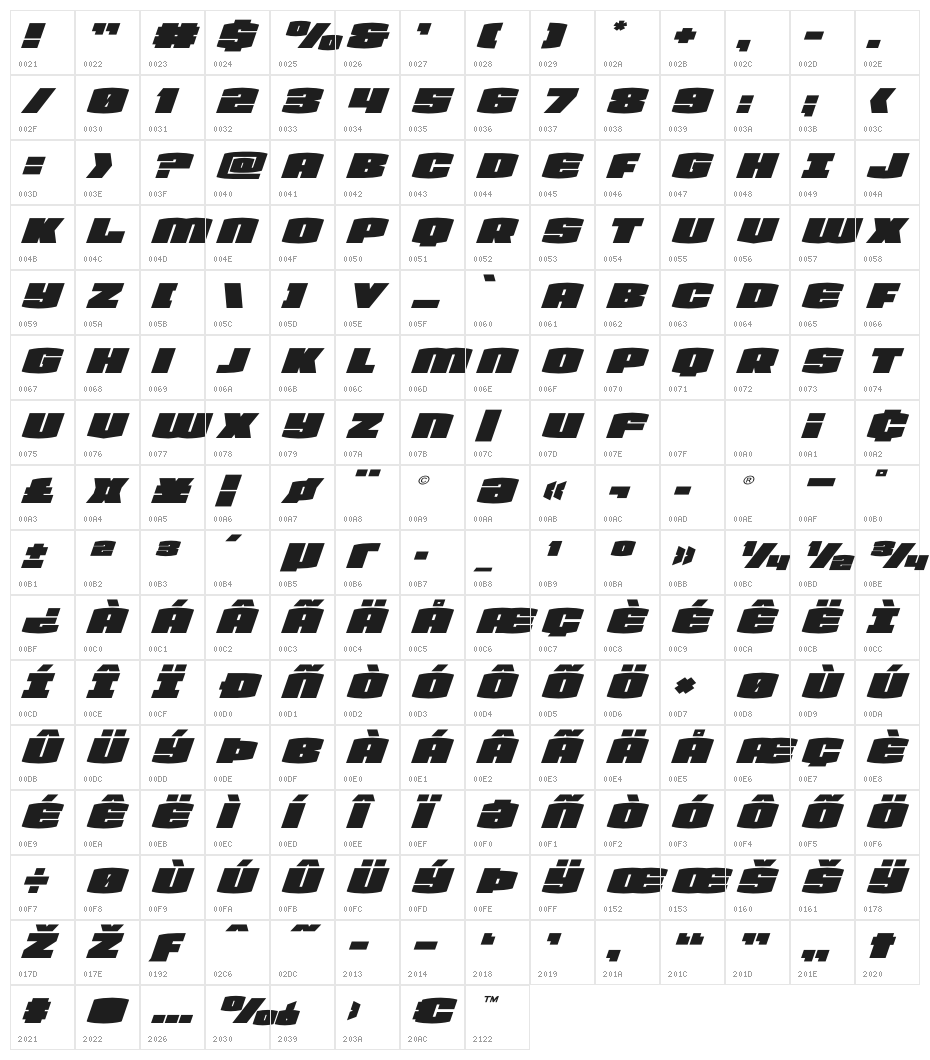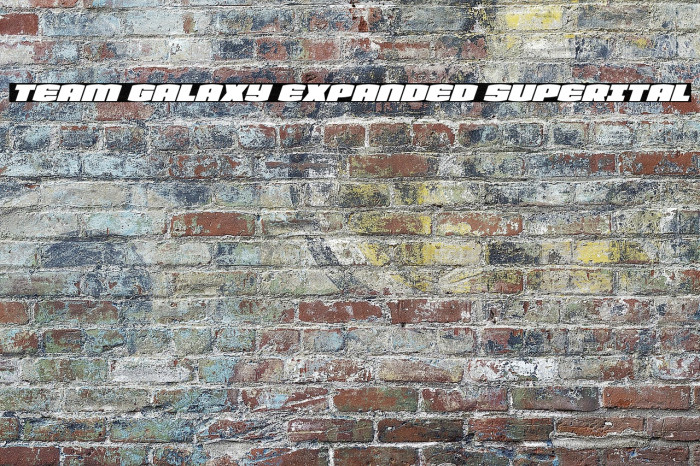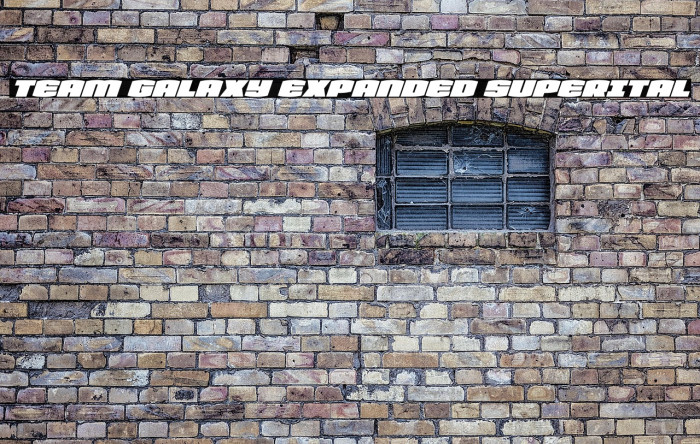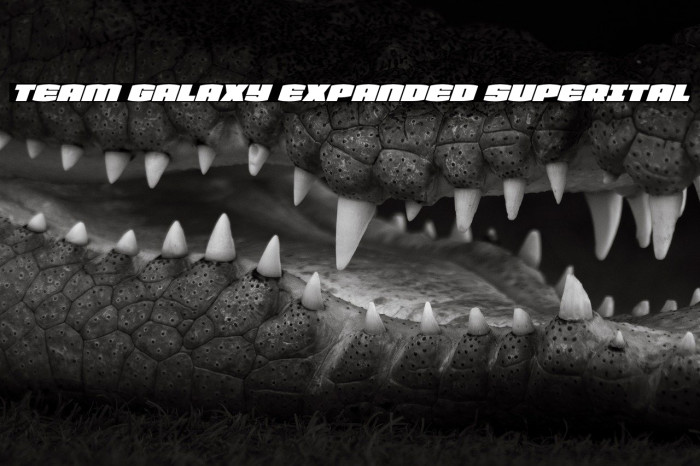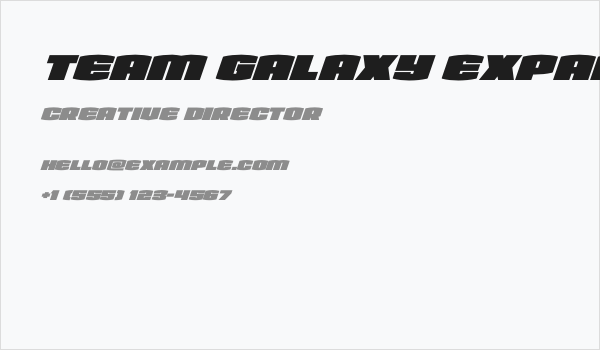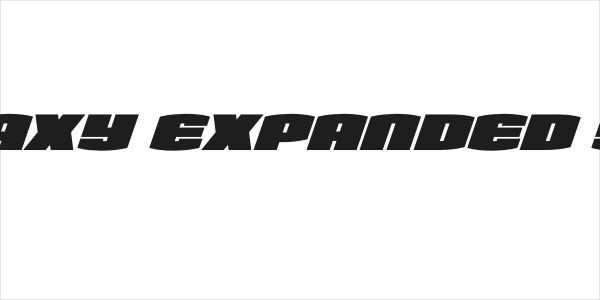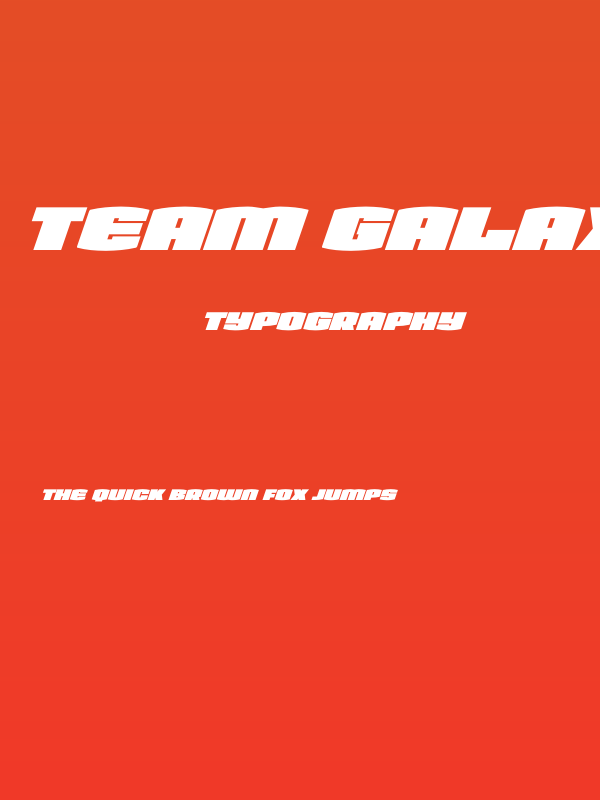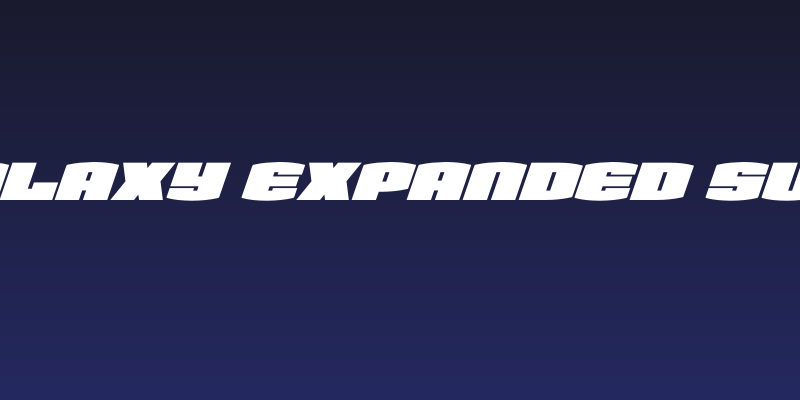
Team Galaxy Expanded SuperItal Font
Team Galaxy Expanded SuperItal Description
This font features a bold and dynamic style with a futuristic flair. The characters are expanded and italicized, giving them a sense of motion and energy. The strokes are thick and uniform, providing a strong visual impact. The design is geometric, with sharp angles and clean lines, making it suitable for modern and tech-oriented projects. The uppercase and lowercase letters maintain a consistent style, while the numbers and special characters are designed to match the overall aesthetic.
| Proposed Projects | Ideal for tech branding, sci-fi movie posters, video game titles, and sports team logos. |